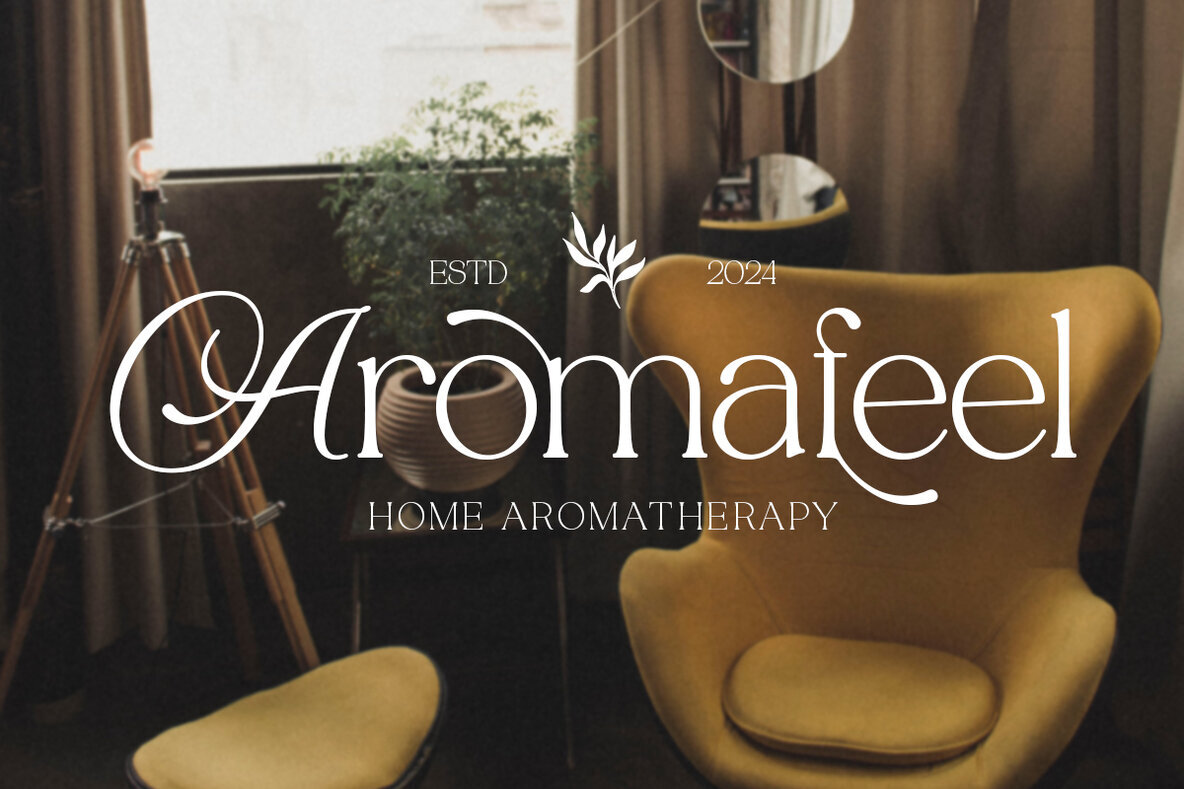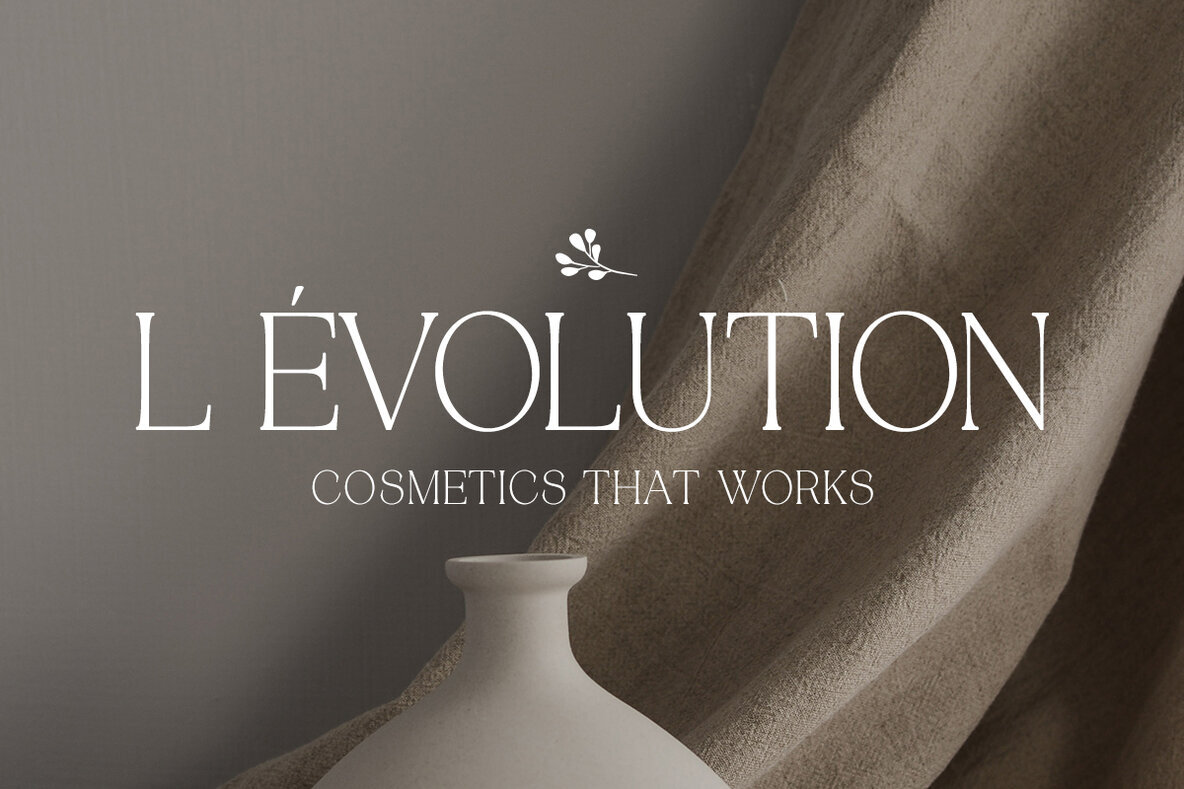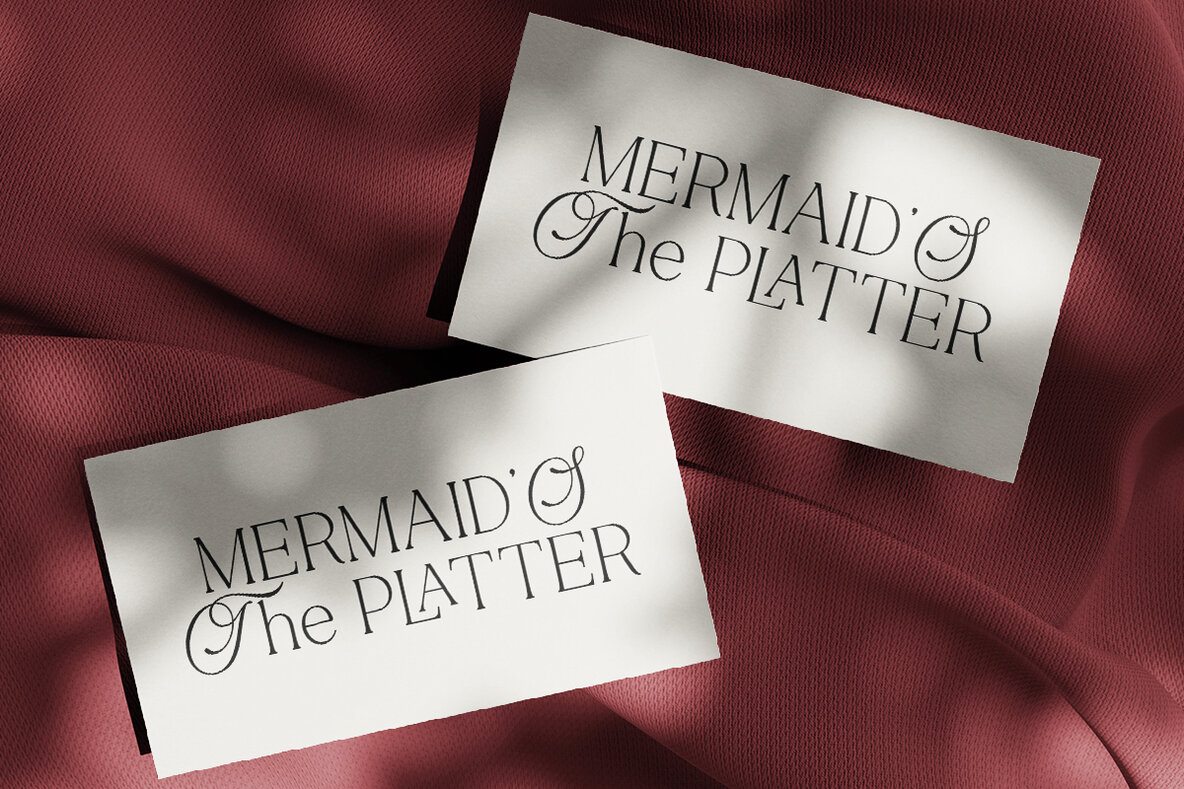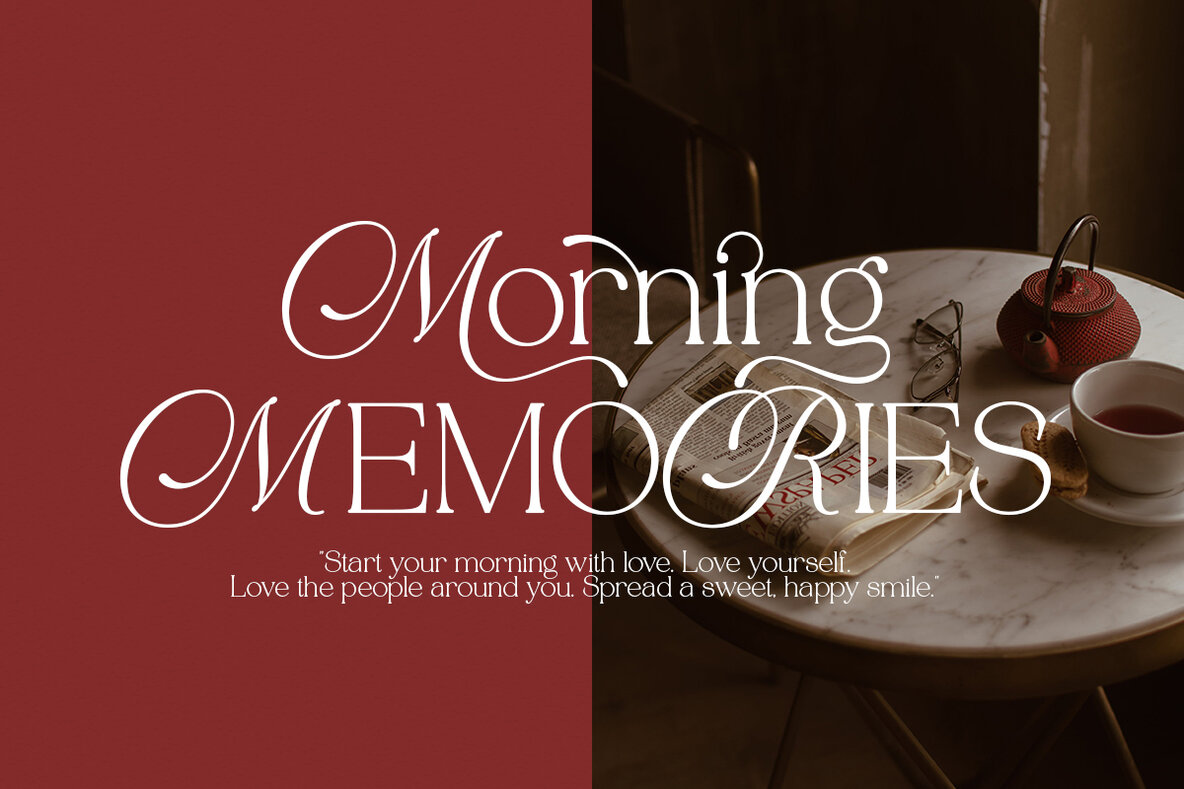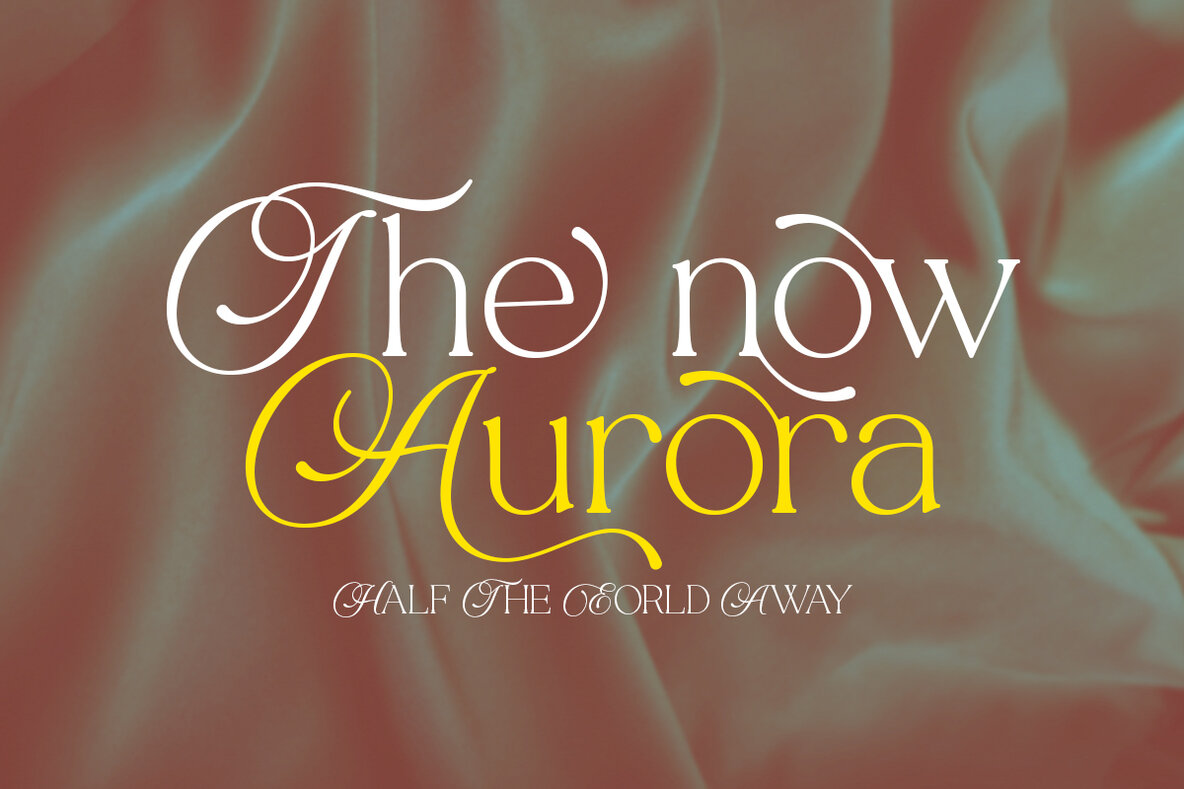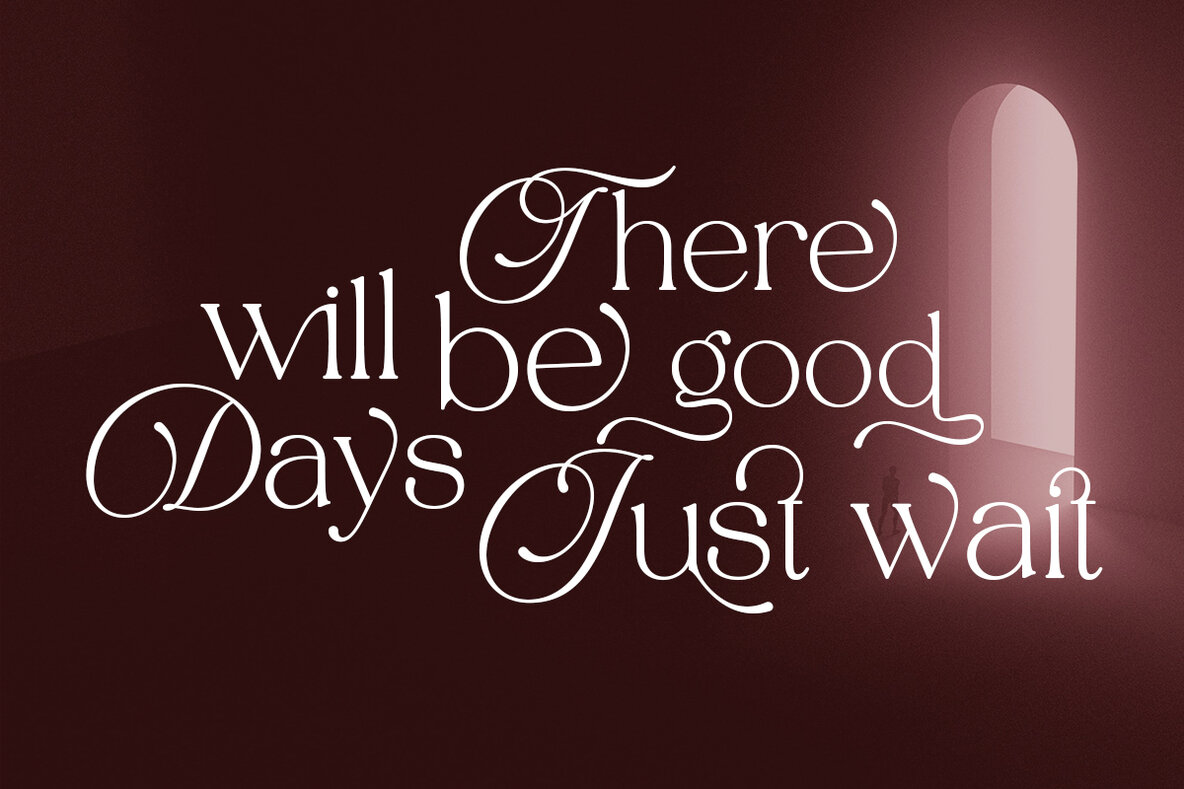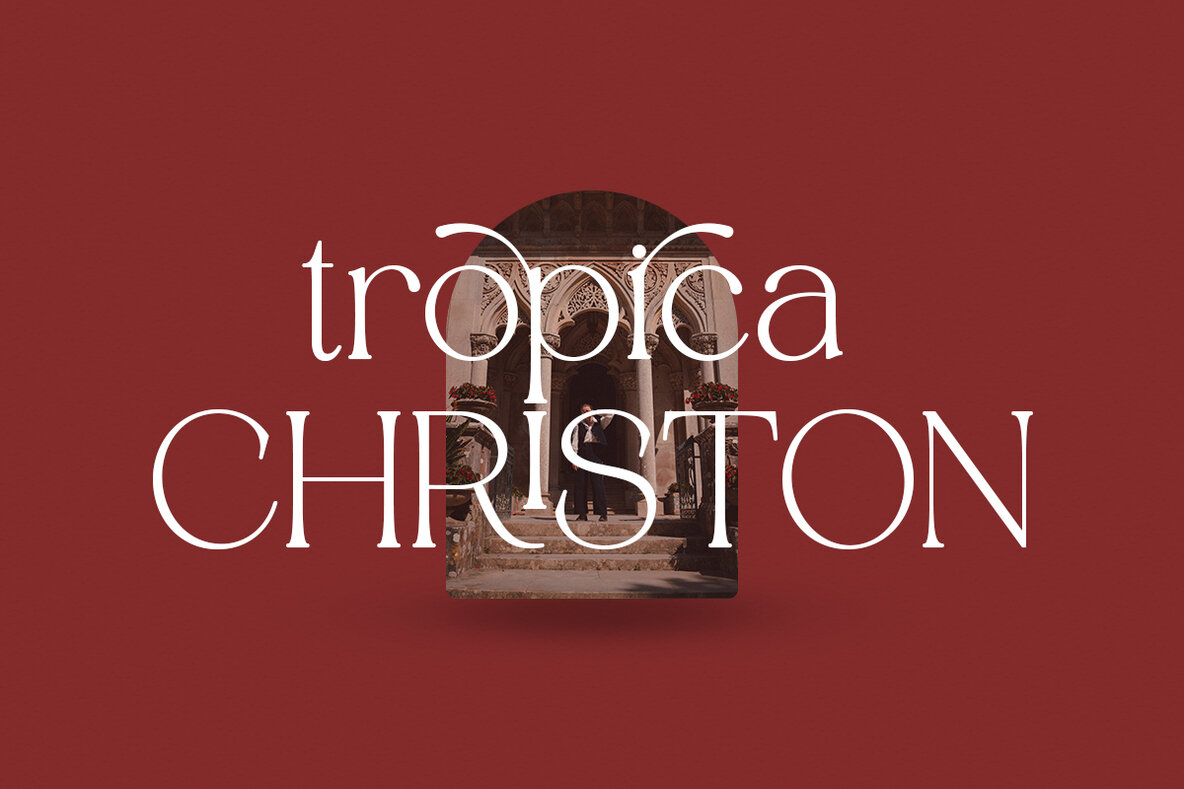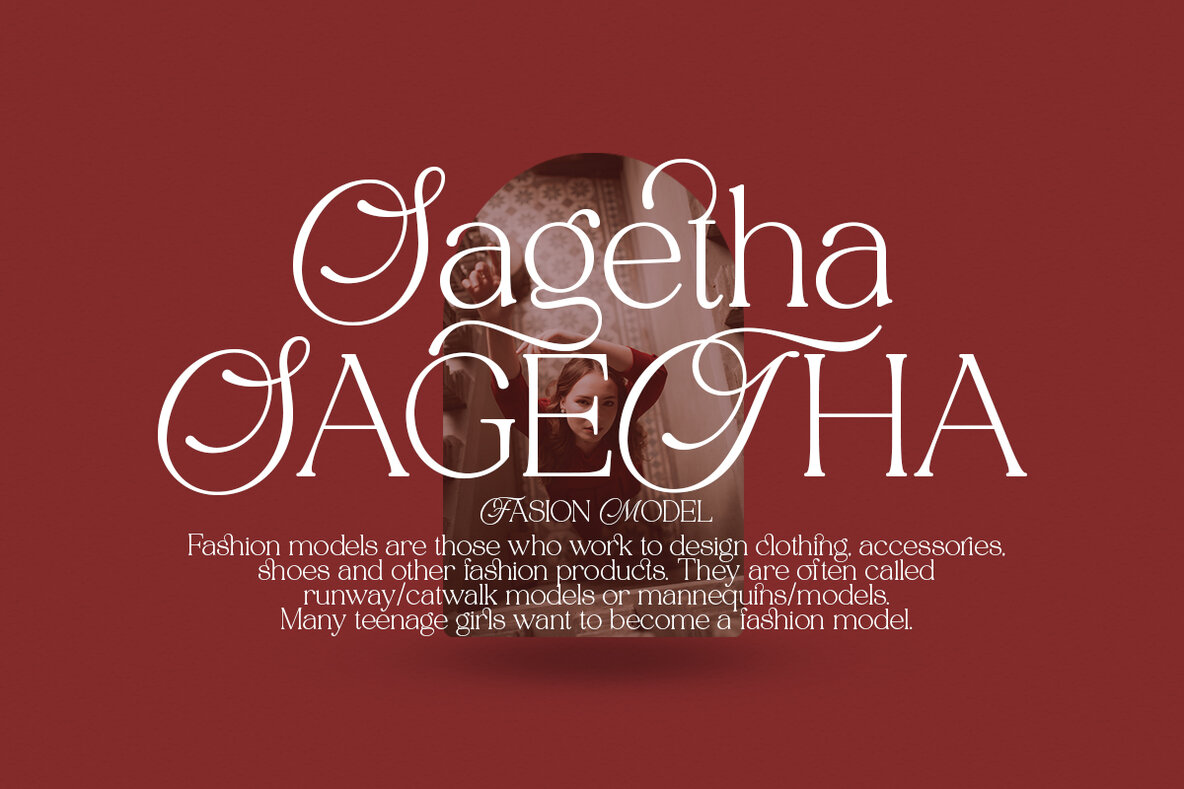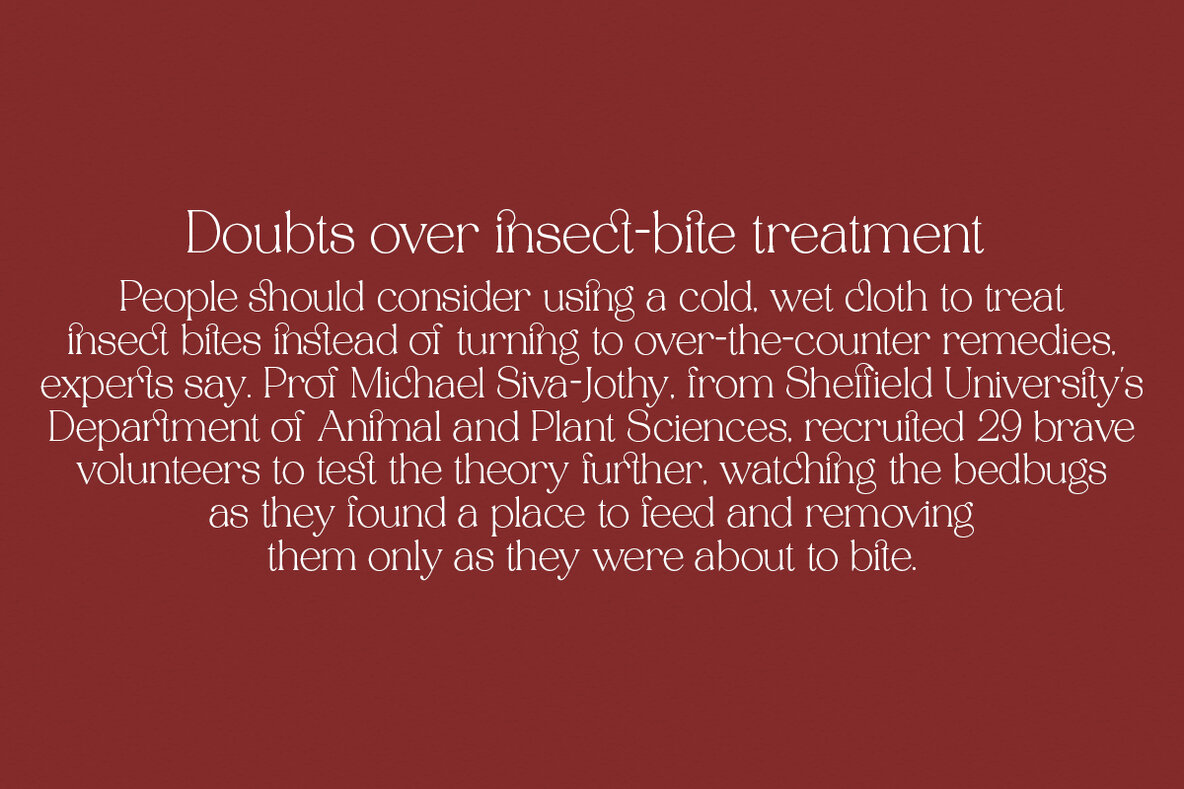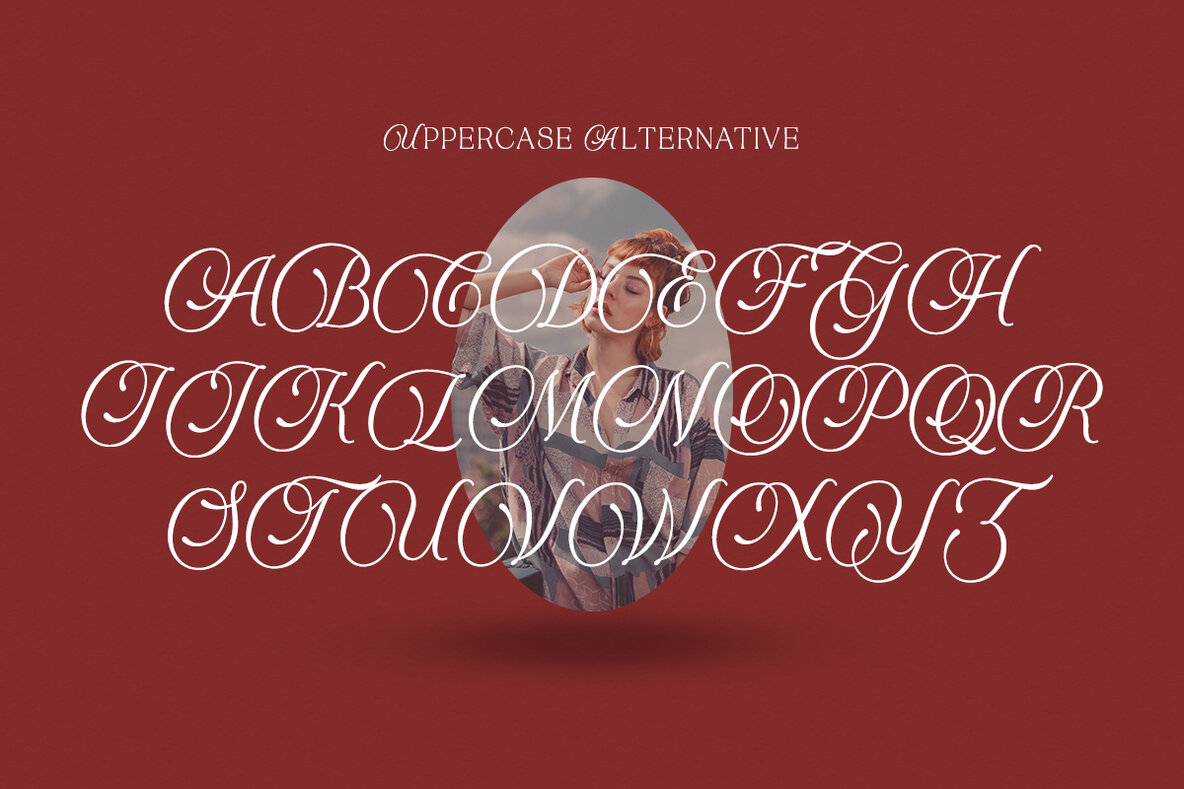
Tenopate Font
Tenopate is a beautiful and uniquely inspiring font that combines classic calligraphy elements with modern serif styles. Available in both regular and italic versions, it is crafted primarily for headlines, short texts, and a range of design applications. Note: Images used in the product preview are for illustrative purposes only and not included in the download.Tenopate: A Captivating Blend of Classic Calligraphy and Modern Serifs
Ideal Usage